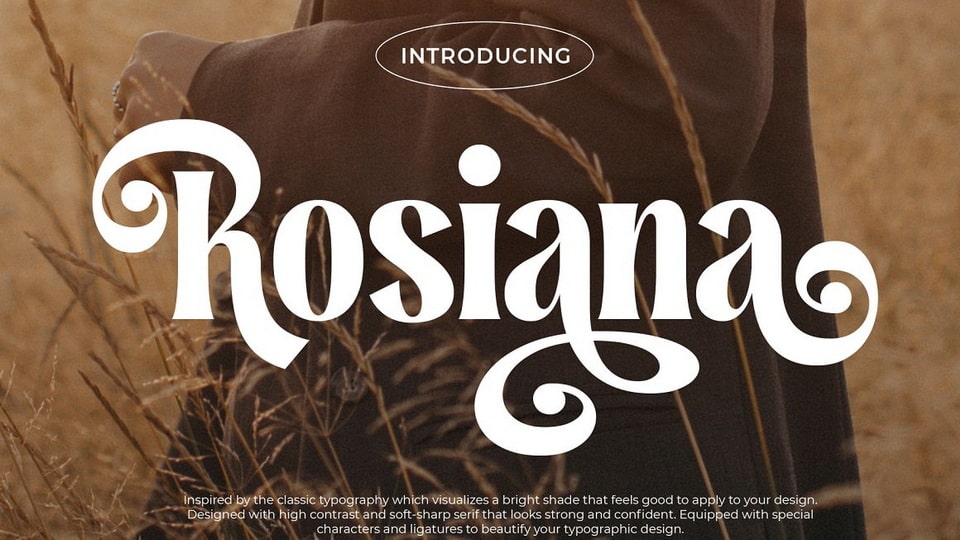
Download Rosiana font, a modern decorative serif typeface. Inspired by the classic typography which visualizes a bright shade that feels good to apply to your design, such as magazines, cards, invitations, labels, logo, books, packaging, and more.